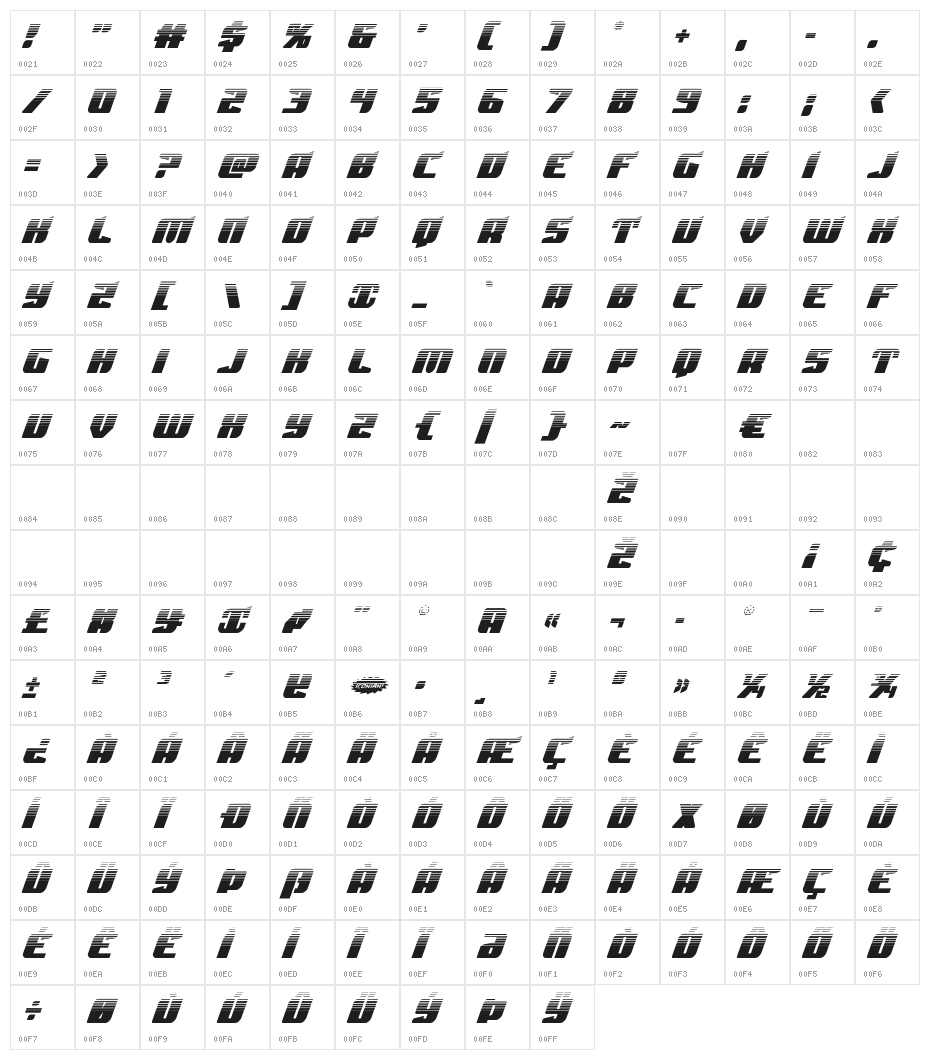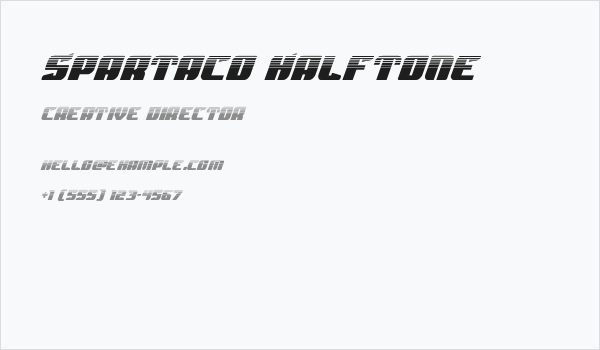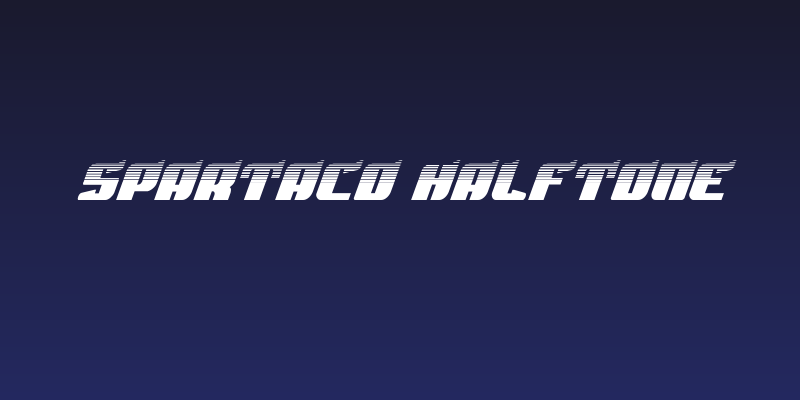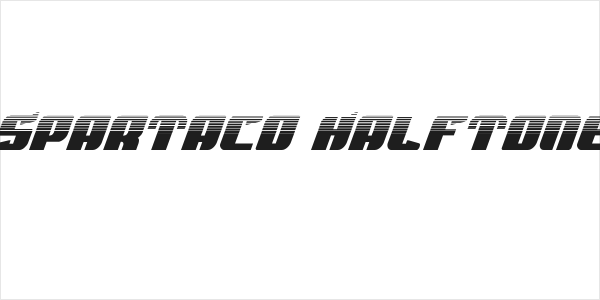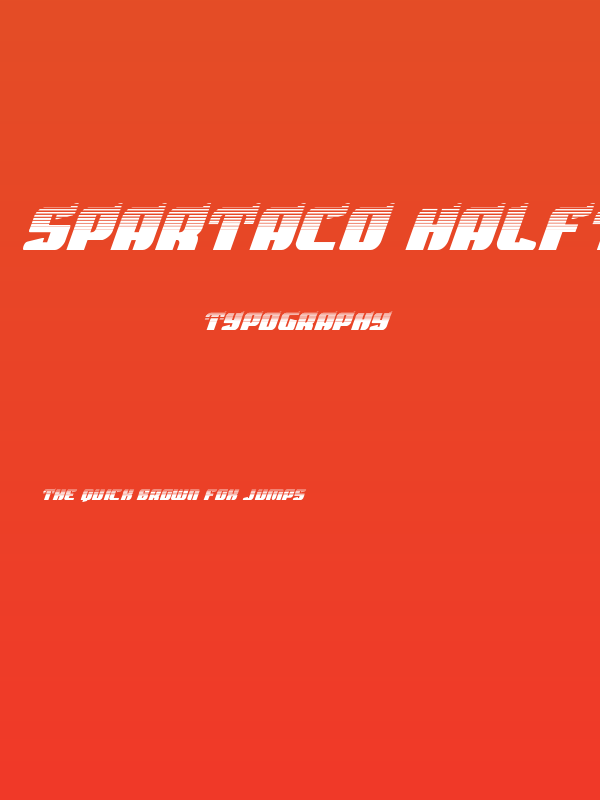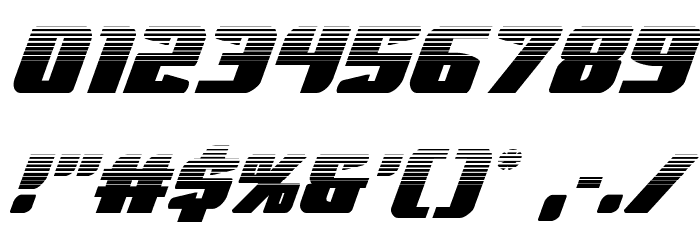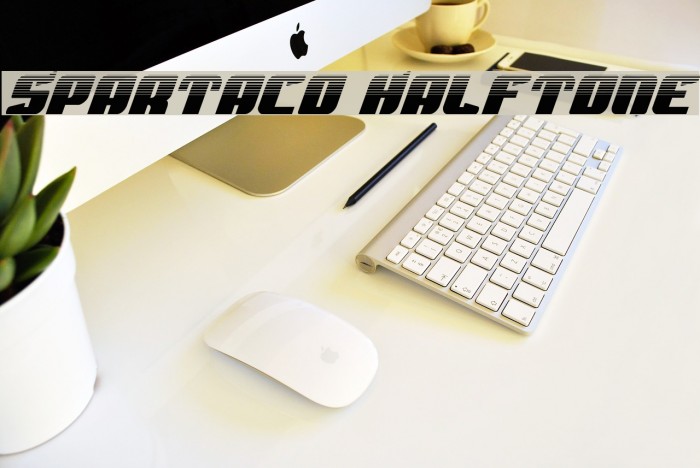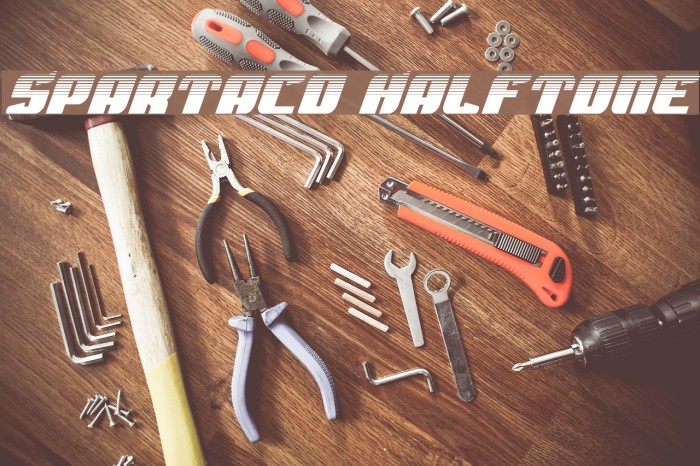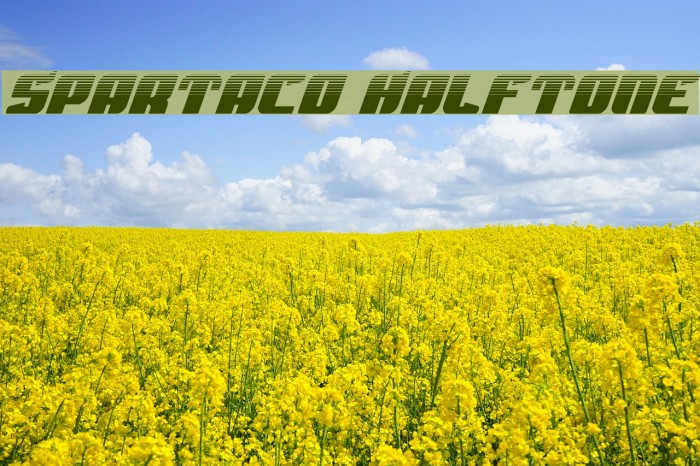
Spartaco Halftone Font
Spartaco Halftone Description
This font features a bold, dynamic style with a halftone effect that gives it a modern and edgy appearance. The characters are designed with a strong, angular structure, and the halftone lines create a sense of movement and energy. The uppercase letters are particularly striking, with a futuristic and industrial feel. The numbers and special characters maintain this aesthetic, ensuring consistency across all glyphs. The font's unique style makes it stand out, ideal for projects that require a bold statement.
| Proposed Projects | Ideal for posters, album covers, sports branding, and any project needing a bold, modern look. |